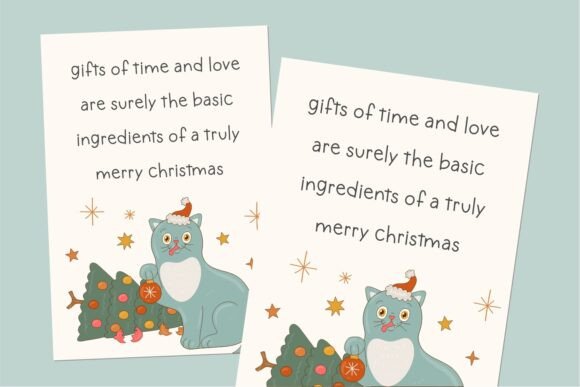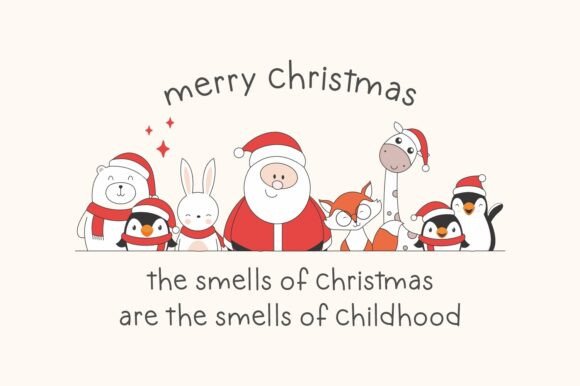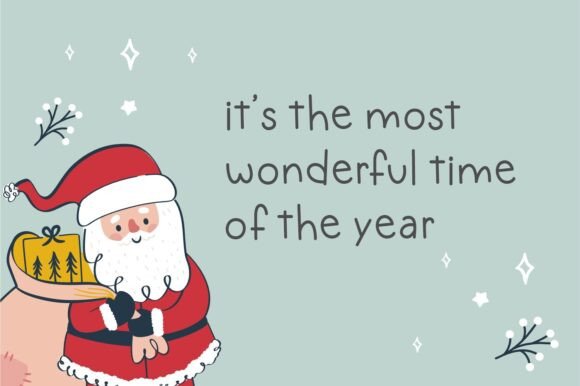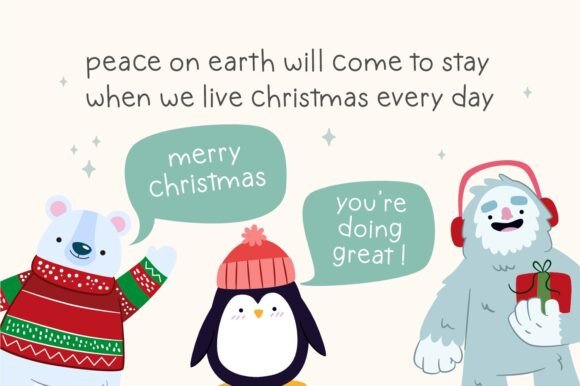
Introduction to Merry Notes Font
Introducing Merry Notes, a captivating blend of playful, hand-drawn Christmas typography.
This spellbinding typeface is tailor-made to breathe magic into festive blog posts, lending a personal touch to holiday invitations, and rendering diary entries truly distinctive Opt for Merry Notes to infuse warmth into greeting cards, express gratitude with heartfelt notes at school, or to embellish the charm of photo albums with its endearing simplicity – making cherished moments more unforgettable.
Key Features of Merry Notes Font